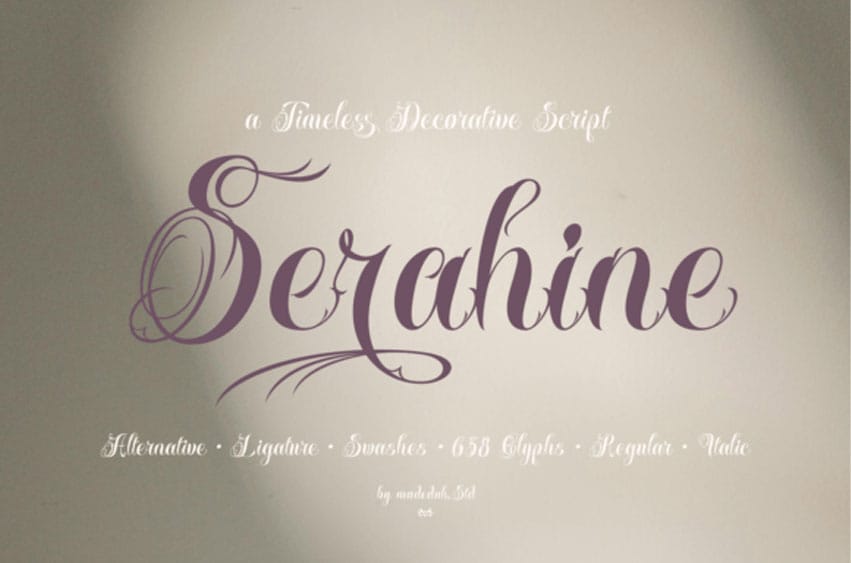
Serahine Font is a luxury decorative script featuring refined ornamental curves and artistic details in every letter. Its graceful and rhythmic forms convey a classic, elegant, and high-end impression, inspired by European aristocratic typography.
Step into a world of classical elegance with Serahine font, a timeless decorative script that feels like a piece of history. This Serahine typeface is a masterpiece of calligraphy, featuring dramatic swashes, intricate ligatures, and a high-contrast stroke that exudes luxury and prestige. With over 600 glyphs, this font offers endless possibilities for customization, allowing designers to create truly unique, one-of-a-kind typographic arrangements.
The Serahine font is the ultimate choice for high-stakes branding and editorial design. Use the Serahine typeface for premium wine labels, luxury jewelry catalogs, or as a focal point for high-fashion magazine headers. Its “Alternative” and “Italic” styles provide the flexibility to transition from a formal, traditional look to a more modern, expressive aesthetic.
This font demands attention and is best used for large-scale applications where its intricate details can shine—such as gold-foiled business cards or grand event invitations. It is more than a font; it is a statement of heritage and craftsmanship.